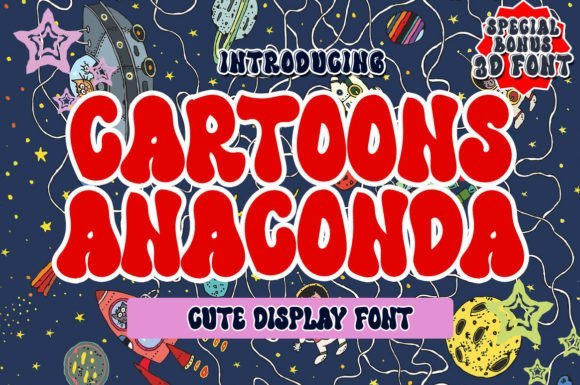
Unlock Your Creativity with Cartoons Anaconda Font
Have you ever been brainstorming ideas for your next design project, and suddenly, a spark of inspiration strikes? You envision a bold, eye-catching headline that screams attention and sets the tone for your entire project. For designers, finding that perfect font can make all the difference in bringing their vision to life. That’s where Cartoons Anaconda Font comes in – a unique, all-caps display font designed to add a stylish touch to any project.
Cartoons Anaconda Font is more than just a font; it’s a statement piece that can elevate your designs to the next level. Its bold, playful style is perfect for making a lasting impression, whether you’re creating a social media campaign, designing a logo, or developing a brand identity. With Cartoons Anaconda Font, you’ll have the versatility to experiment with different design styles and push the boundaries of creativity.
Cartoons Anaconda Font Key Features
- Font Family: Cartoons Anaconda
- Unique Characteristics: Cartoon-style, hand-drawn illustrations and playful typography, ideal for children’s books, educational materials, and entertainment projects
Cartoons Anaconda Font Review
Overall, I’m quite impressed with the Cartoons Anaconda Font. It’s a fun and playful font that’s sure to bring a smile to anyone’s face. Here’s what I like about it: ✨
- Unique design: The font’s cartoonish style is refreshing and stands out from more traditional serif and sans-serif fonts.
- Expressive curves: The rounded edges and smooth lines give the font a friendly and approachable feel.
- Highly customizable: The font comes in various weights and styles, making it easy to find the perfect version for your project.
However, there are a few limitations I’d like to mention: ⚠️
- Limited legibility: The font’s playful style can make it difficult to read at smaller sizes or in dense text.
- Not suitable for formal projects: While the font is perfect for casual and creative projects, it may not be the best choice for formal documents or presentations.
Overall, I think the Cartoons Anaconda Font is a great addition to any designer’s toolkit. Its unique style and high level of customization make it a great choice for projects that require a playful and creative touch.
Cartoons Anaconda Font: A Practical Application Guide
Use bold text to emphasize important information.
Experiment with different font sizes to create visual hierarchy.
Combine with other playful fonts to create a unique visual style.
Children’s book illustrations.
Cartoon-style posters and flyers.
Fun and creative social media graphics.
Alternatives to Cartoons Anaconda Font for Designers
1. Comic Sans MS
Comic Sans MS is a playful and informal font often used in digital media, children’s books, and advertisements. It’s ideal for casual, friendly designs that require a lighthearted tone.
Compared to Cartoons Anaconda Font, Comic Sans MS has a more rounded and childlike appearance, making it suitable for younger audiences. However, it lacks the bold, dynamic feel of Cartoons Anaconda Font.
Great Vibes is a modern, handwritten font that adds a touch of whimsy and elegance to designs. It’s perfect for creating a relaxed, summery atmosphere in branding, packaging, or advertising materials.
Unlike Cartoons Anaconda Font, Great Vibes has a more refined and sophisticated appearance, making it suitable for a wider range of design applications. However, it lacks the cartoonish, playful feel of Cartoons Anaconda Font.
Pacifico is a beautiful, cursive font that exudes a sense of relaxation and tranquility. It’s ideal for creating a calm, beachy vibe in branding, packaging, or website design.
Pacifico has a more elegant and refined appearance compared to Cartoons Anaconda Font, making it suitable for designs that require a sense of sophistication. However, it lacks the bold, playful feel of Cartoons Anaconda Font.